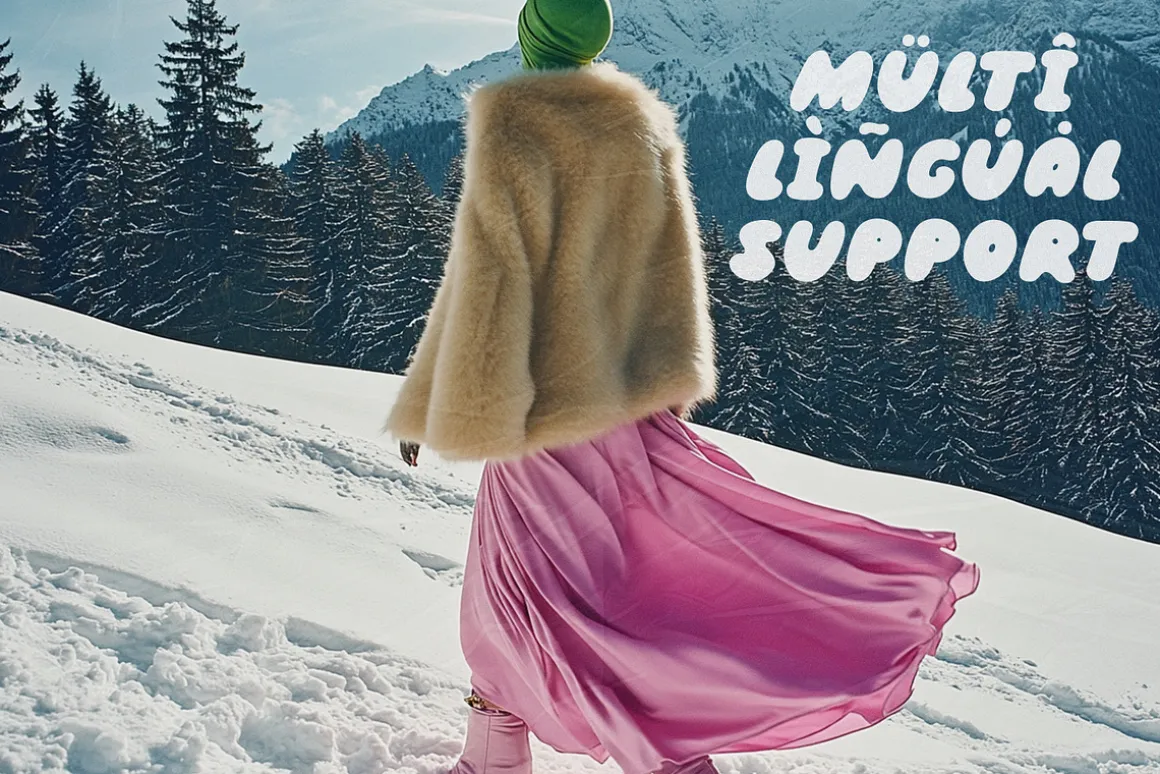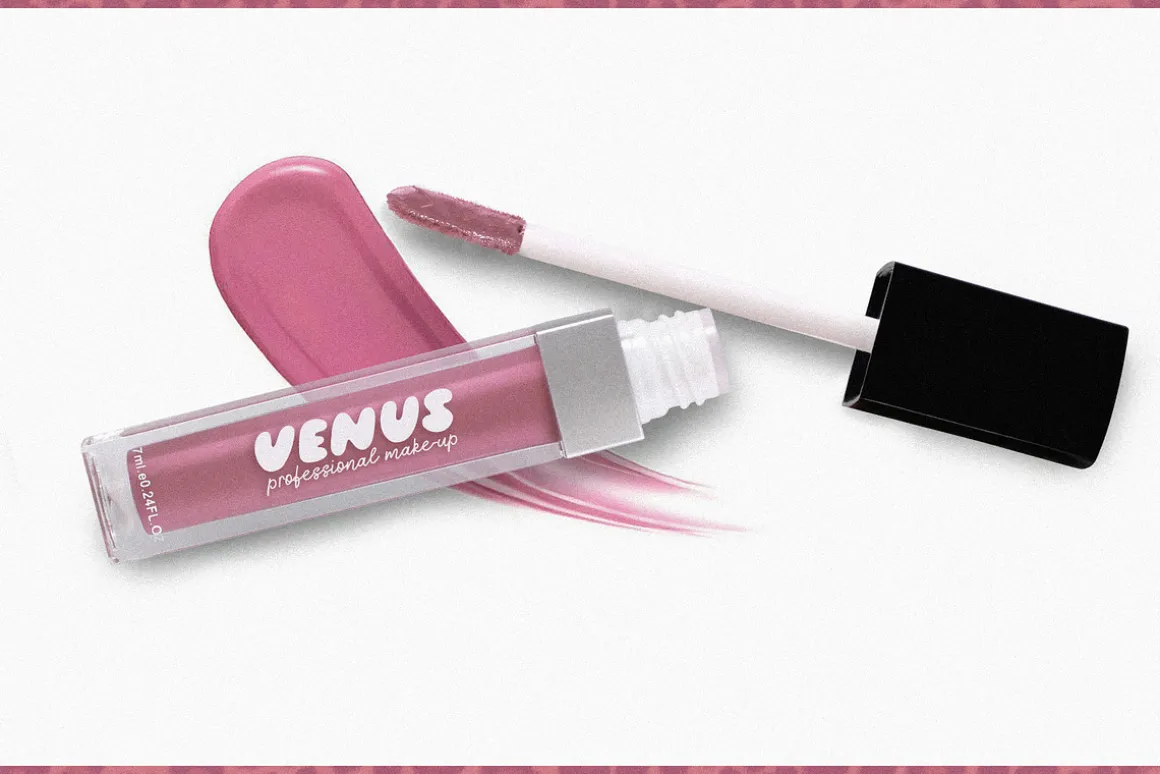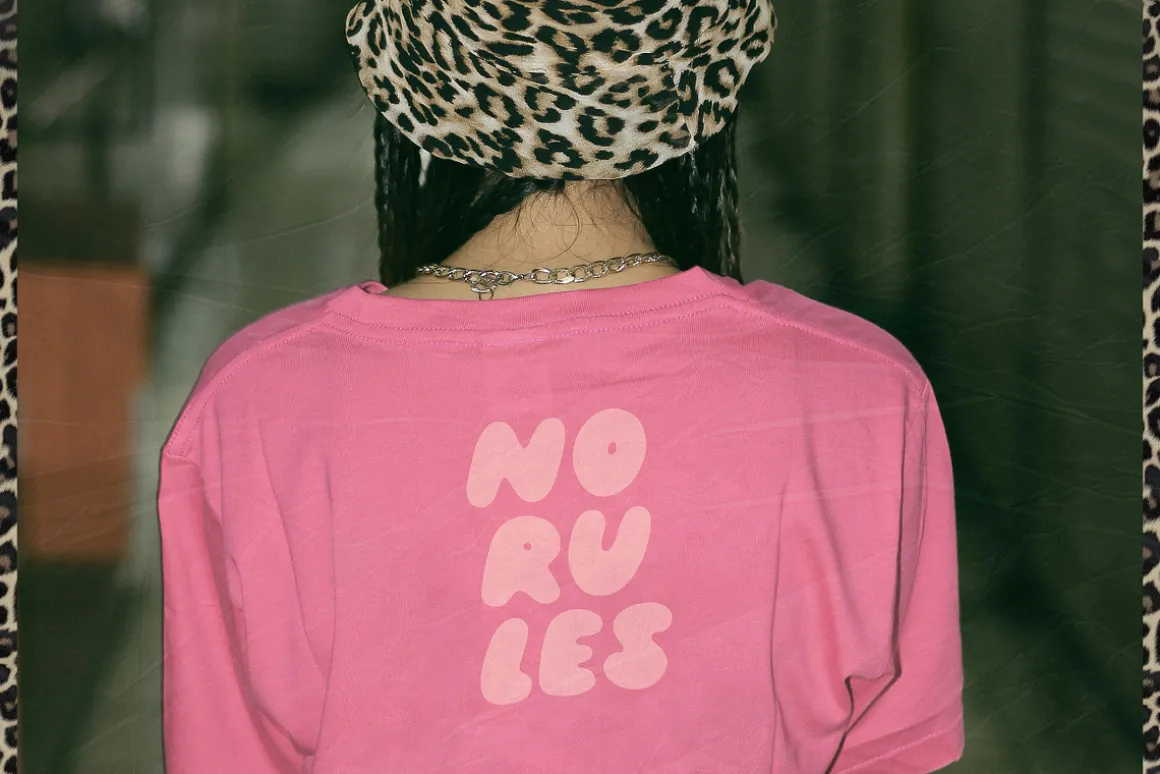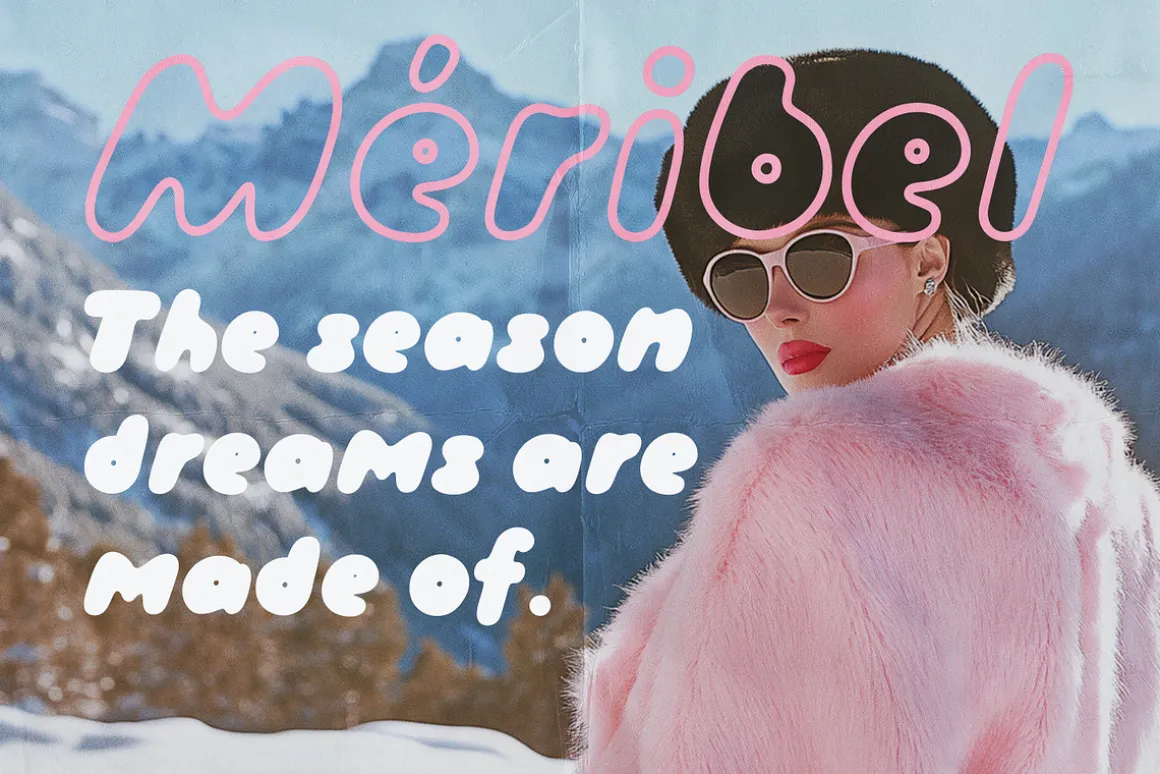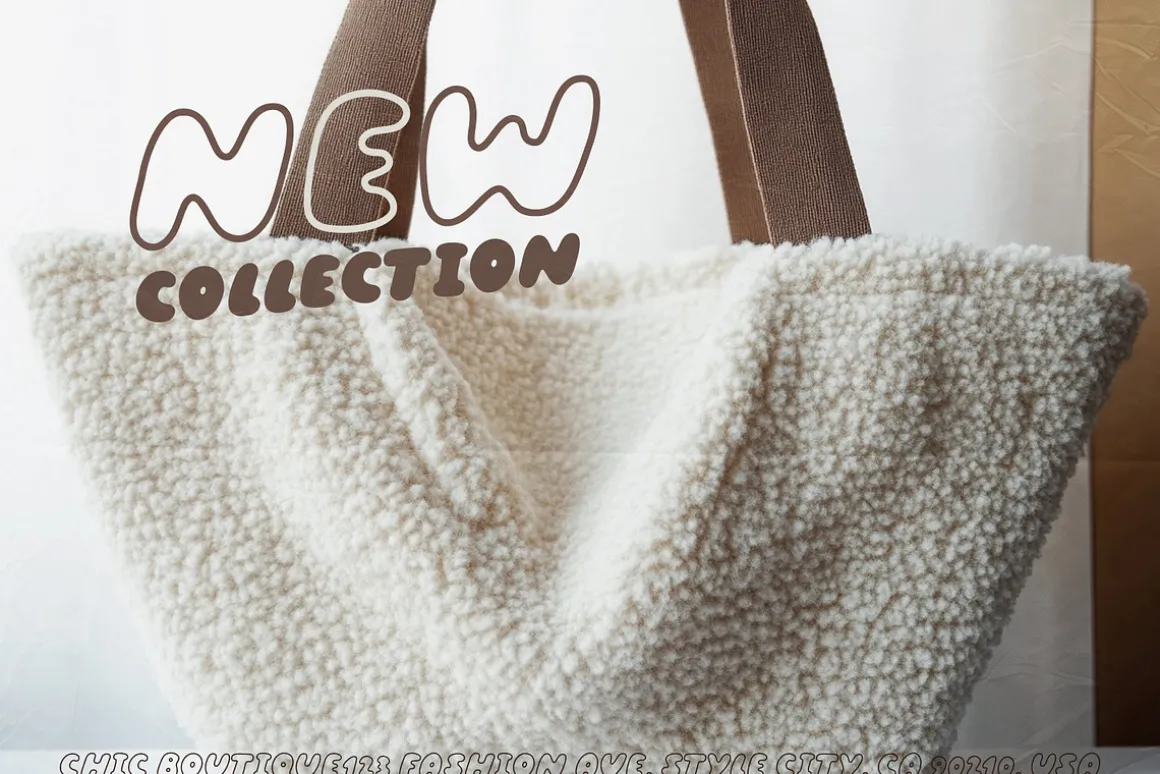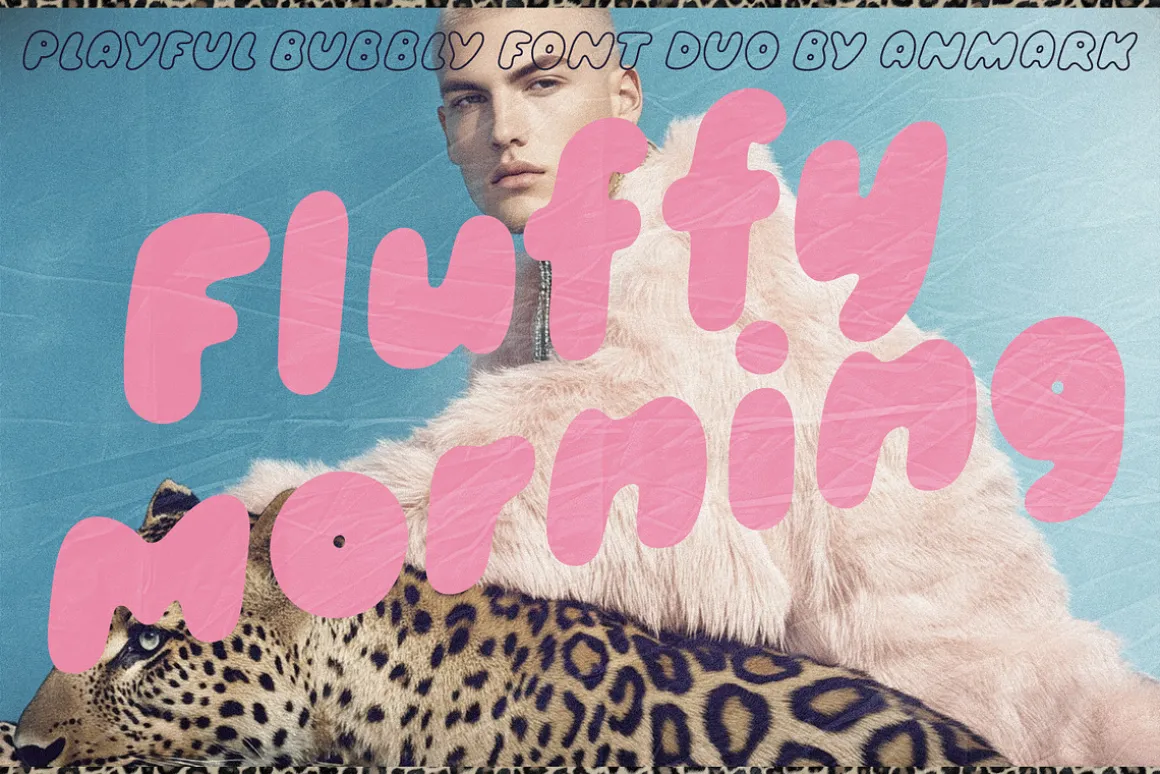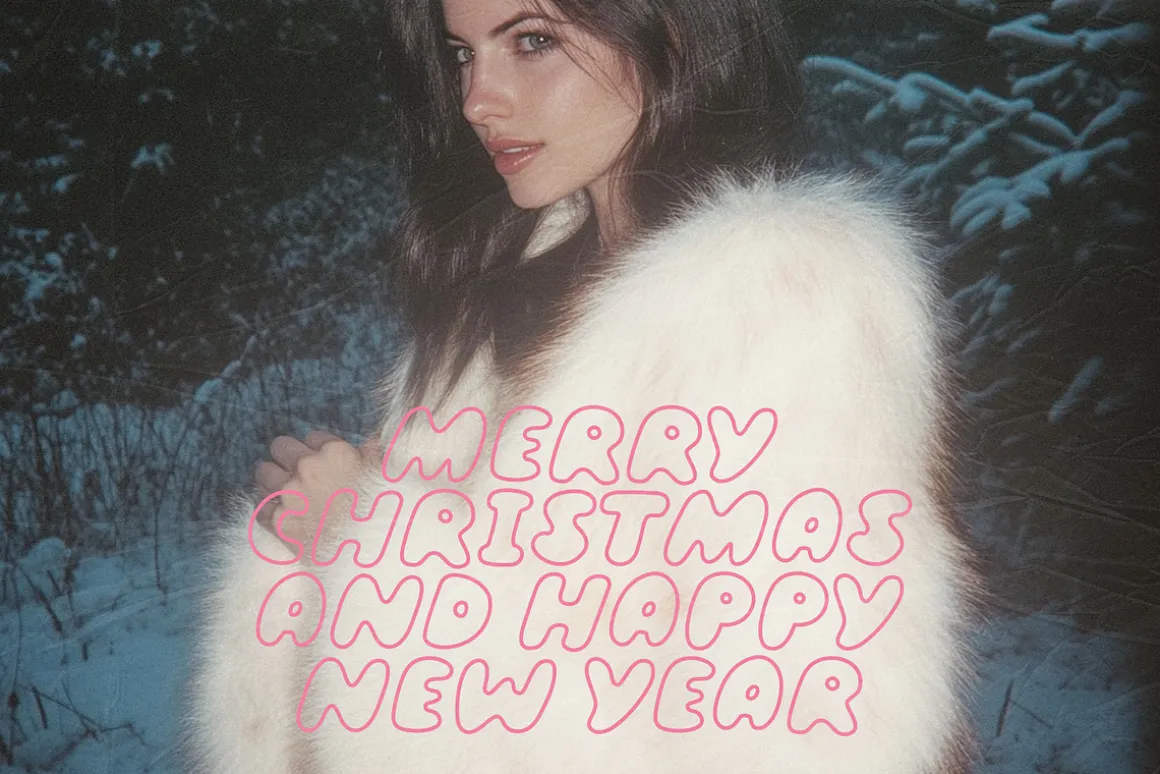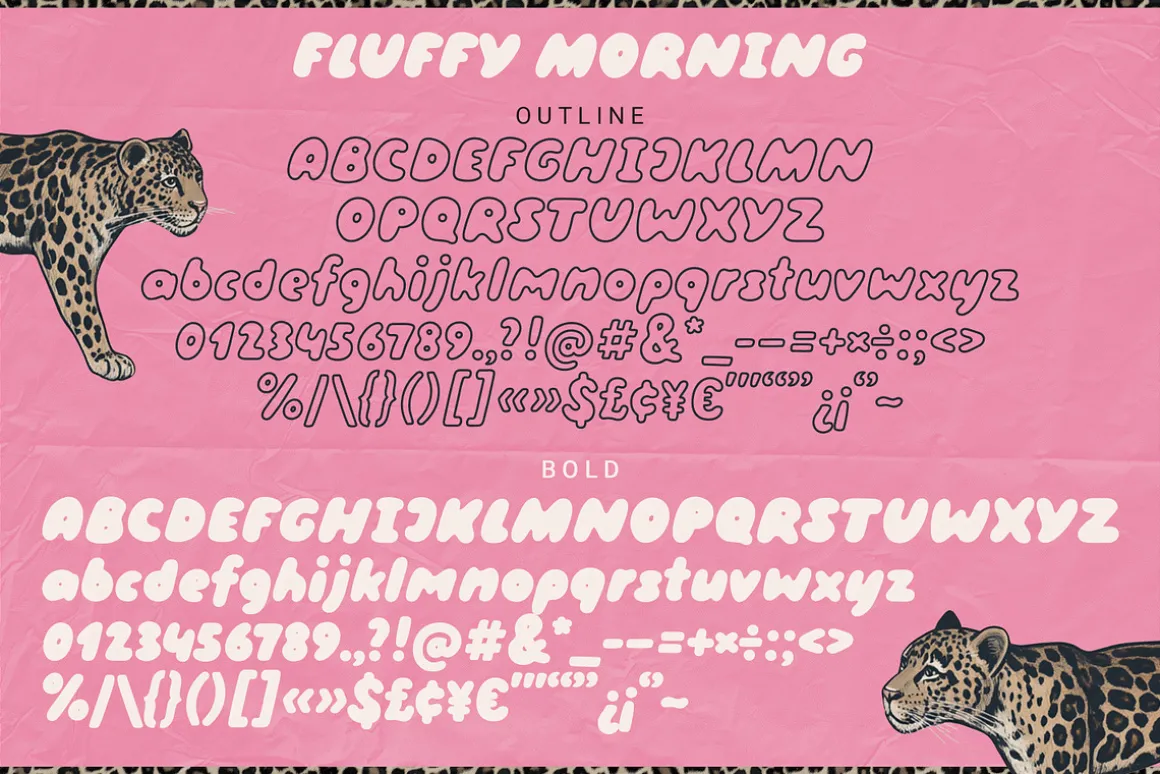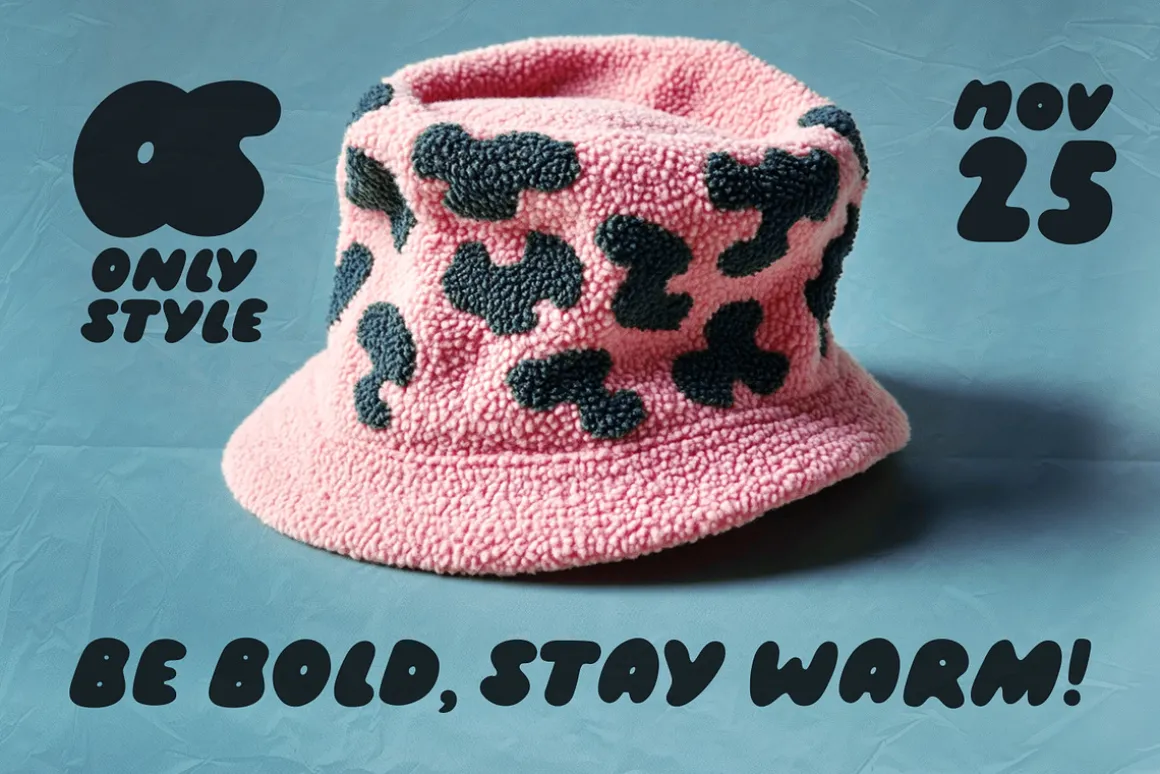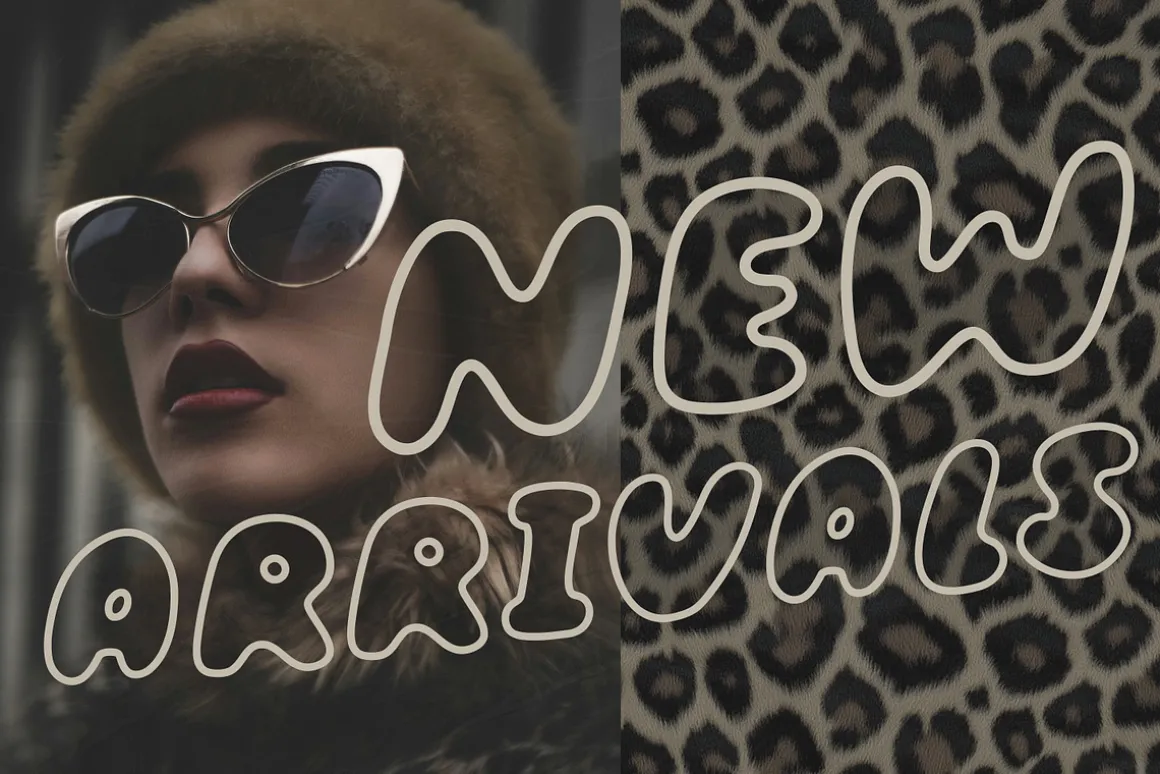
Introducing Fluffy Morning, a delightful bubble font duo that embodies warmth and coziness. With two distinct styles – Bold and Outline – this rounded typeface adds a playful touch to your designs.
Perfect for logos, covers, blogs, invitations, and social media graphics, Fluffy Morning is versatile enough to brighten up any project. Its friendly aesthetic makes it ideal for children’s products, greeting cards, and casual branding. Additionally, this charming font is a fantastic choice for fashion-related designs, adding a trendy flair to clothing labels and promotional materials. Whether you’re creating eye-catching headlines or charming captions, Fluffy Morning will bring a sense of joy and comfort to your typography.
This font features a wide range of languages – Spanish, German, French, Italian, Portuguese, Swedish, Norwegian, Danish, Finnish, and more (ÁÀÂÄÃÅÆĆÇÐÉÈÊËÍÌÎÏŁÑÓÒÔÖÕØŒŚÚÙÛÜÝŸŹŻÞ áàâäãåąæćçðéèêëęíìîïłńñóòôöõøœśúùûüýÿźżß).